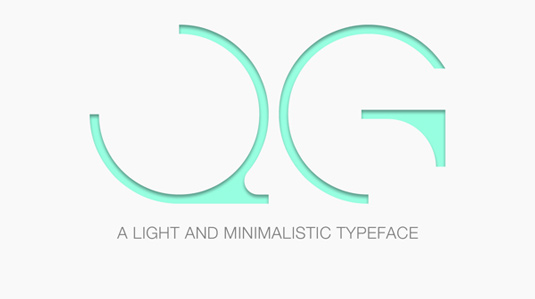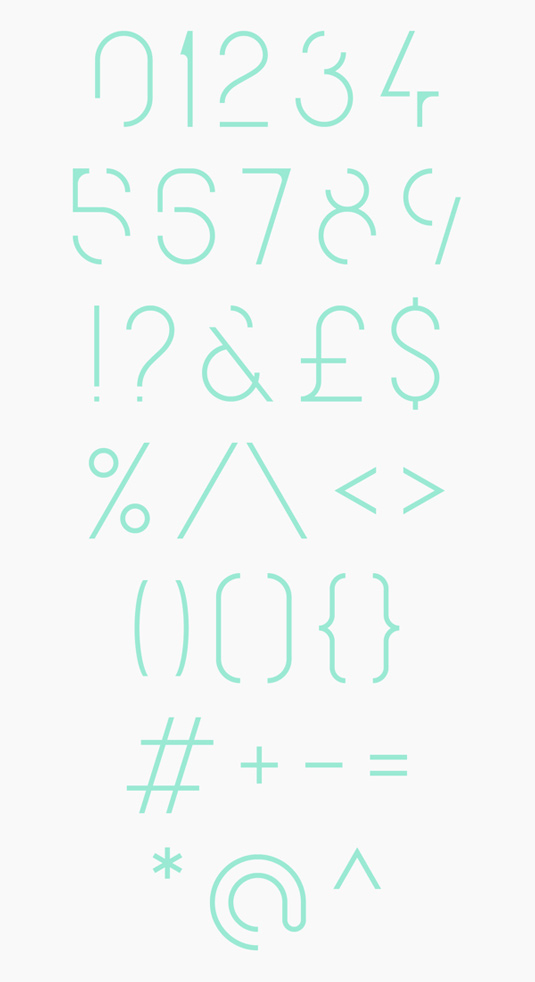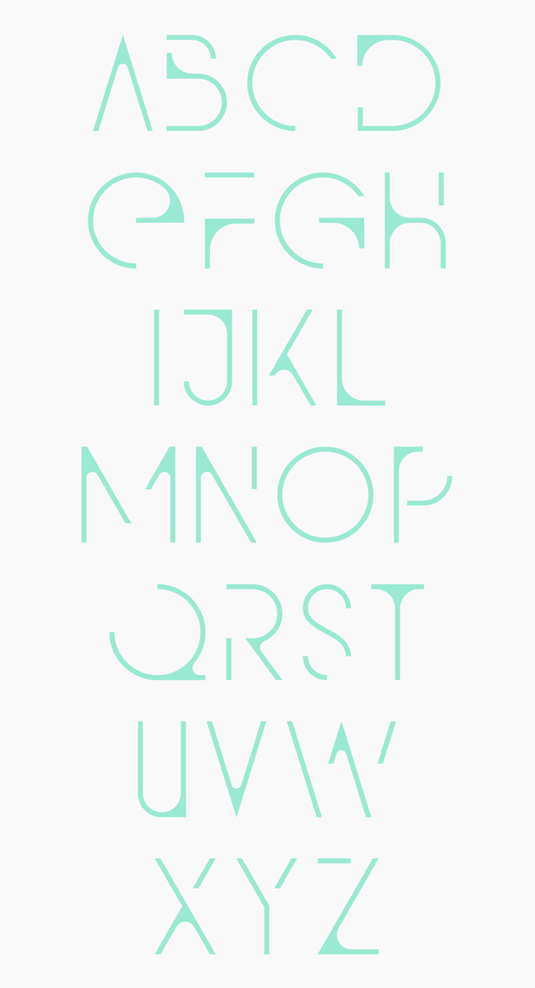
Font of the day: QG
QG by Anthony James
Today's font of choice QG was created by Manchester-based designer Anthony James. "QG is a sans serif typeface with simple curves and abstract lines, leaving something to the imagination," says James. "The curved 'coffee stain' corners add a little weight and prevent the aesthetics from being too rigid. The application of an inner shadow is great with lightweight typefaces such as QG."